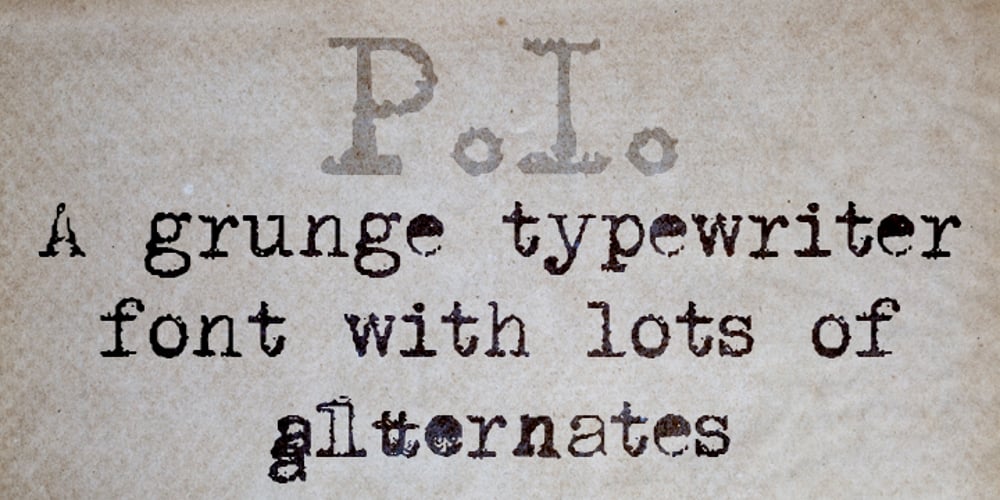
P.I. Font Family was designed by David Kerkhoff and published by Hanoded. P.I. contains 5 styles and family package options. As he eyed the bloody corpse of Lefty Jones in the hallway, Mac figured the crook had it coming: he always seemed to end up in the wrong place at the wrong time. Mac sighed, his head heavy with last night’s alcohol; this meant another day behind his desk, typing endless reports and drinking the bureau’s poor excuse for coffee…